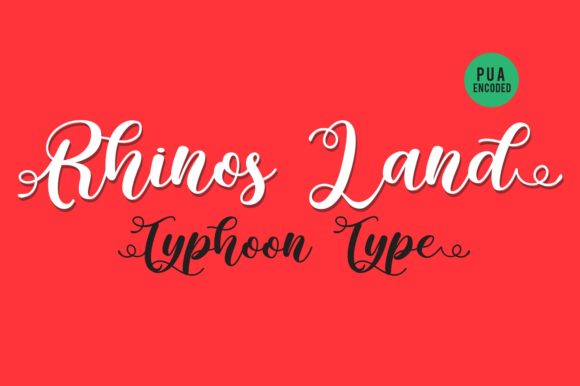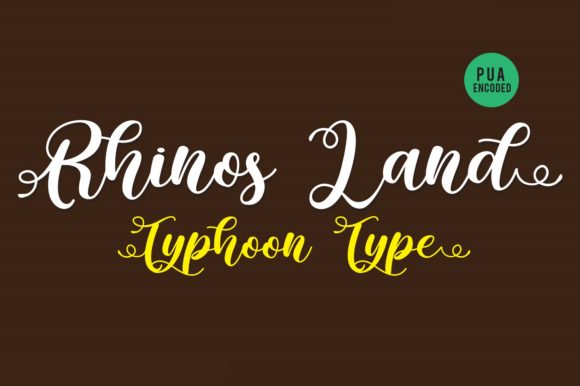
Rhinos Land Font
About Rhinos Land Font
Rhinos Land is a stunning and authentic handwritten font with a cool vibe. It will add a unique charm to any design project!